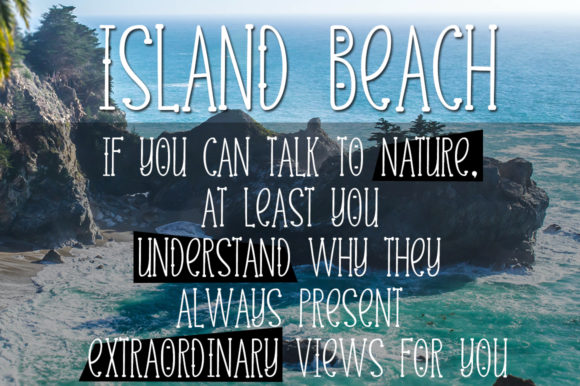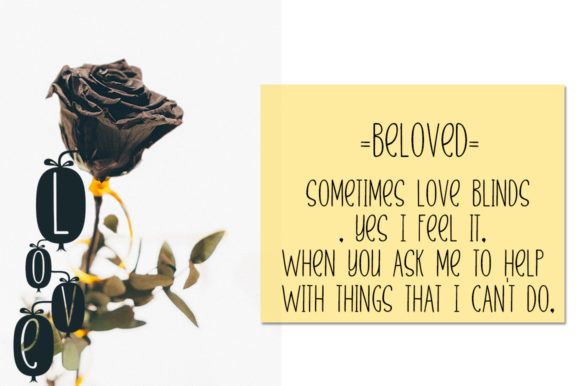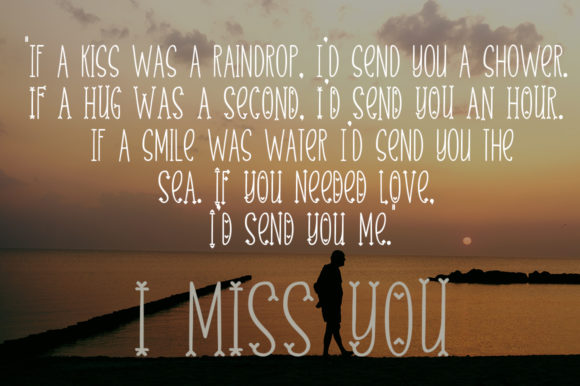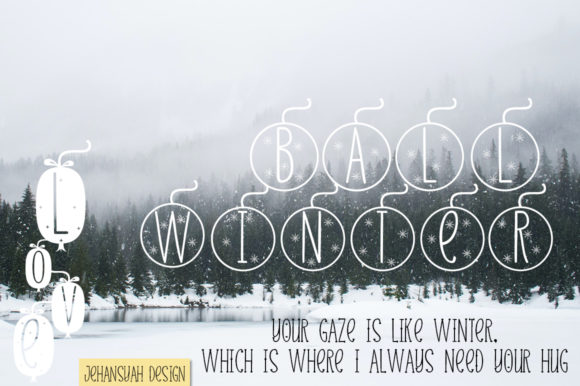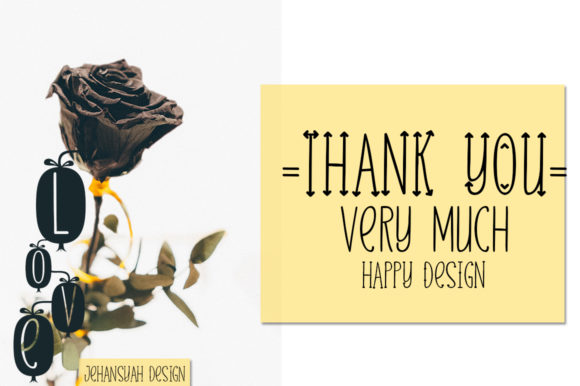
Skinny Font
About Skinny Font
Skinny is a gorgeous monogram. It has a charming and playful look and iconic fruit characters! Use it to turn any design project into a true stand out!